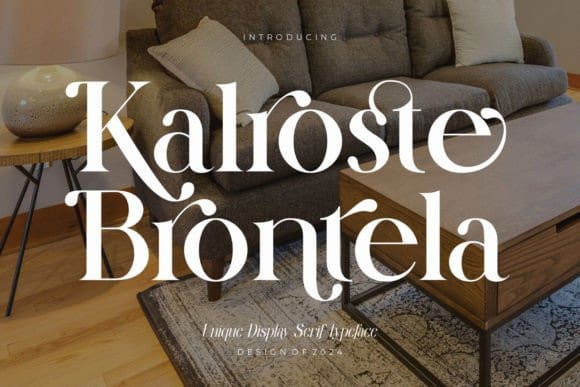
Kalroste Brontela Font
Kalroste Brontela Font – Modern and ElegantDisplay Serif Typeface inspired by the famous minimalist logo perfect for the purposes of designing templates, brochures, videos, advertising branding, logos, invitation, layout design, elegant crafting, beauty design and other